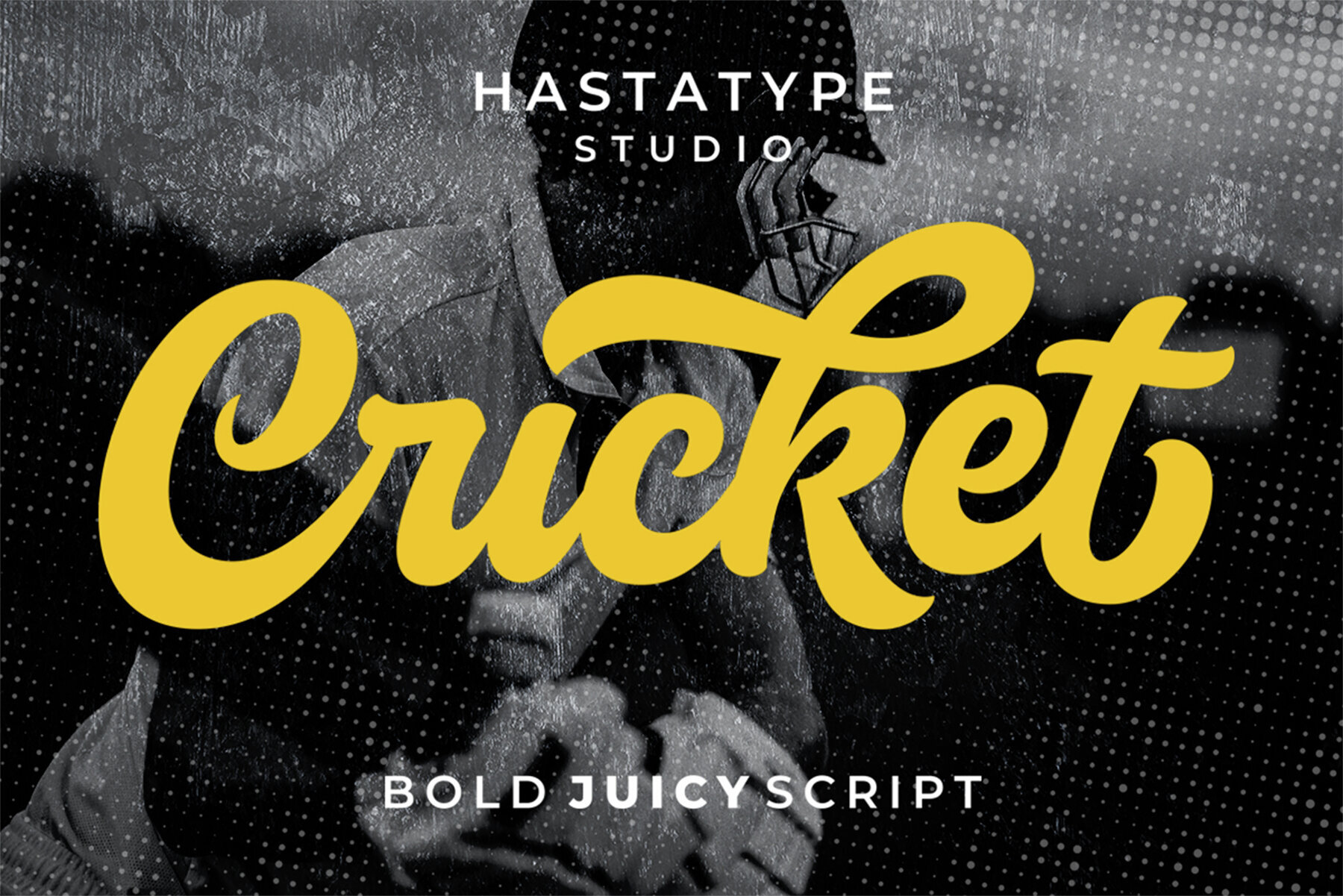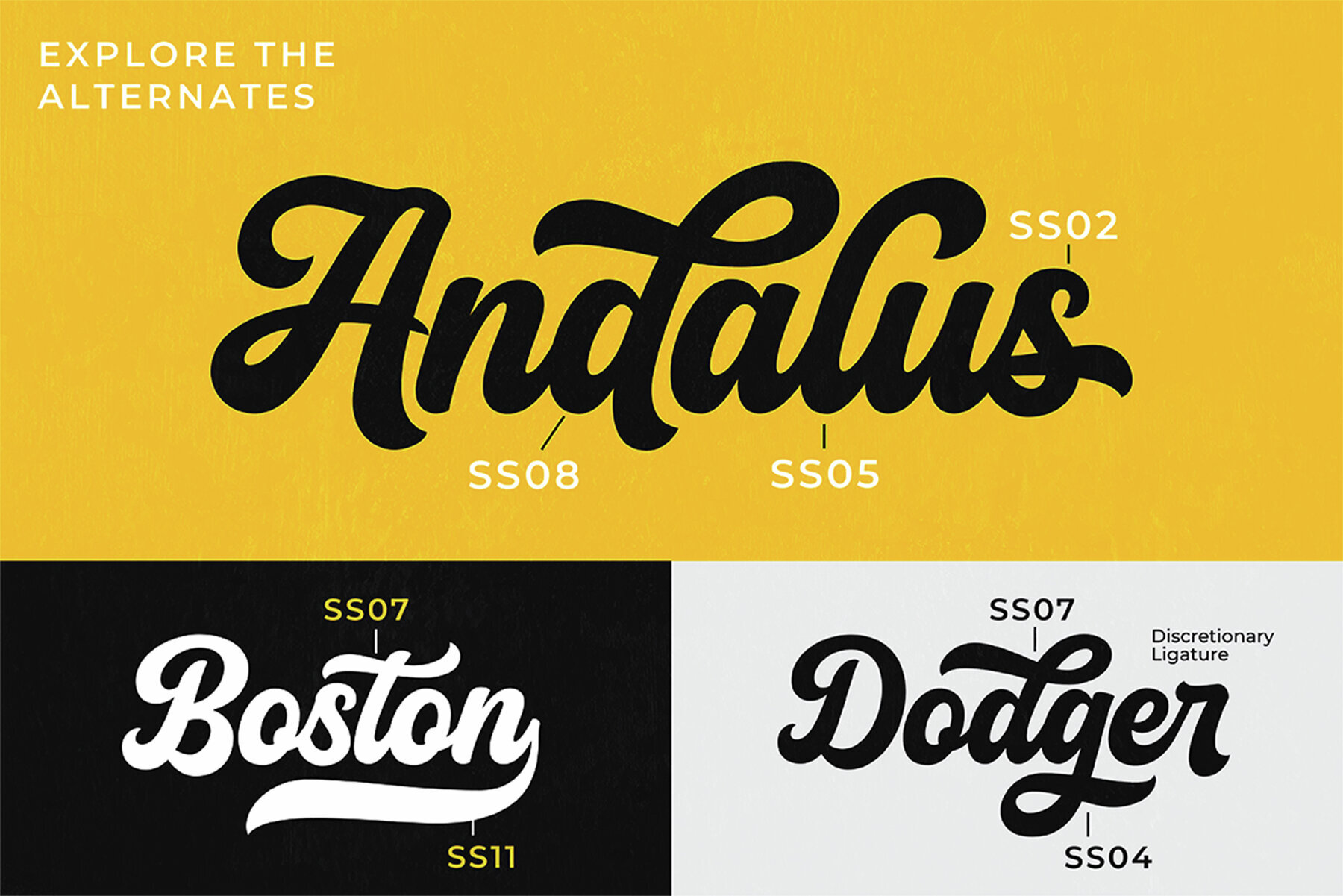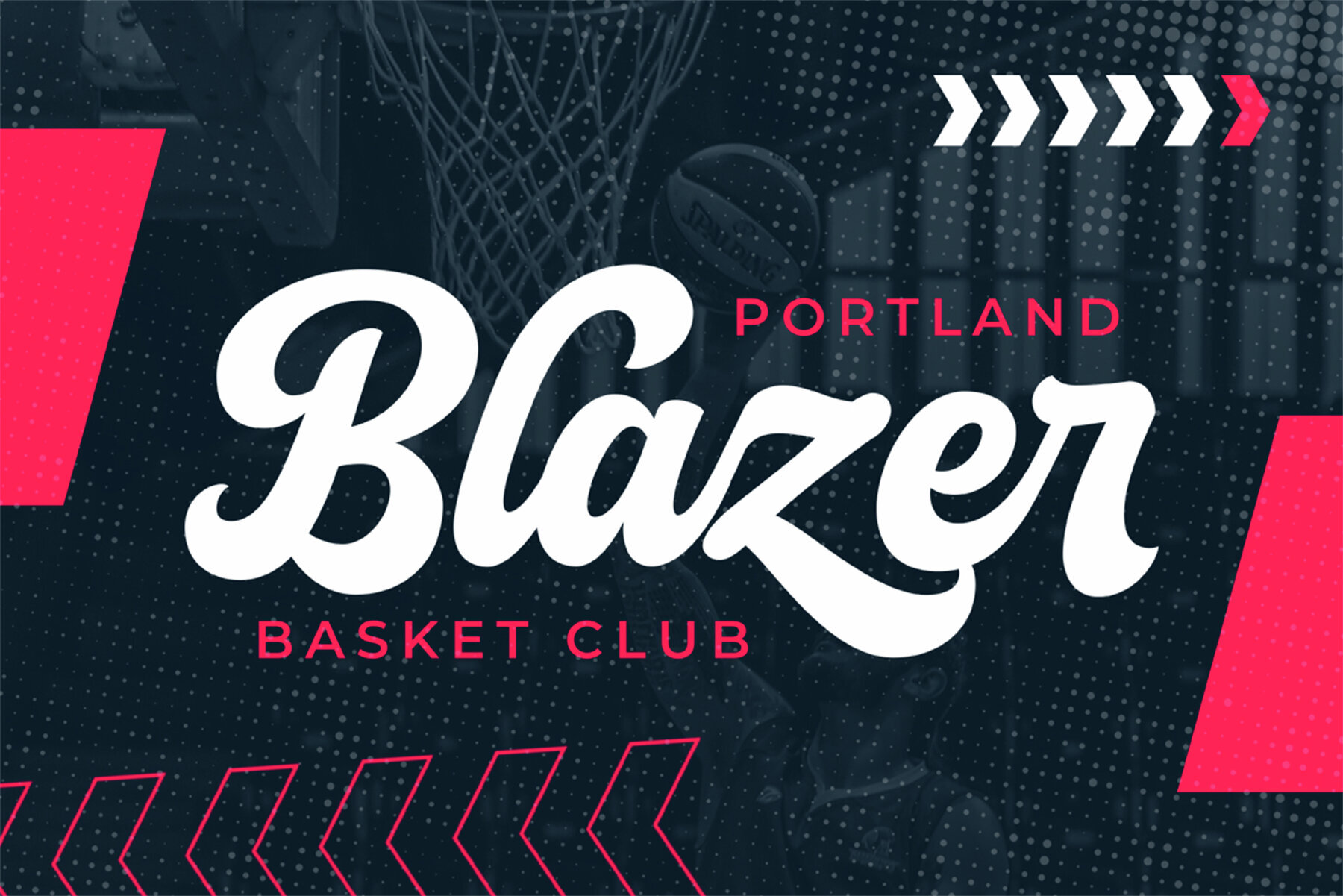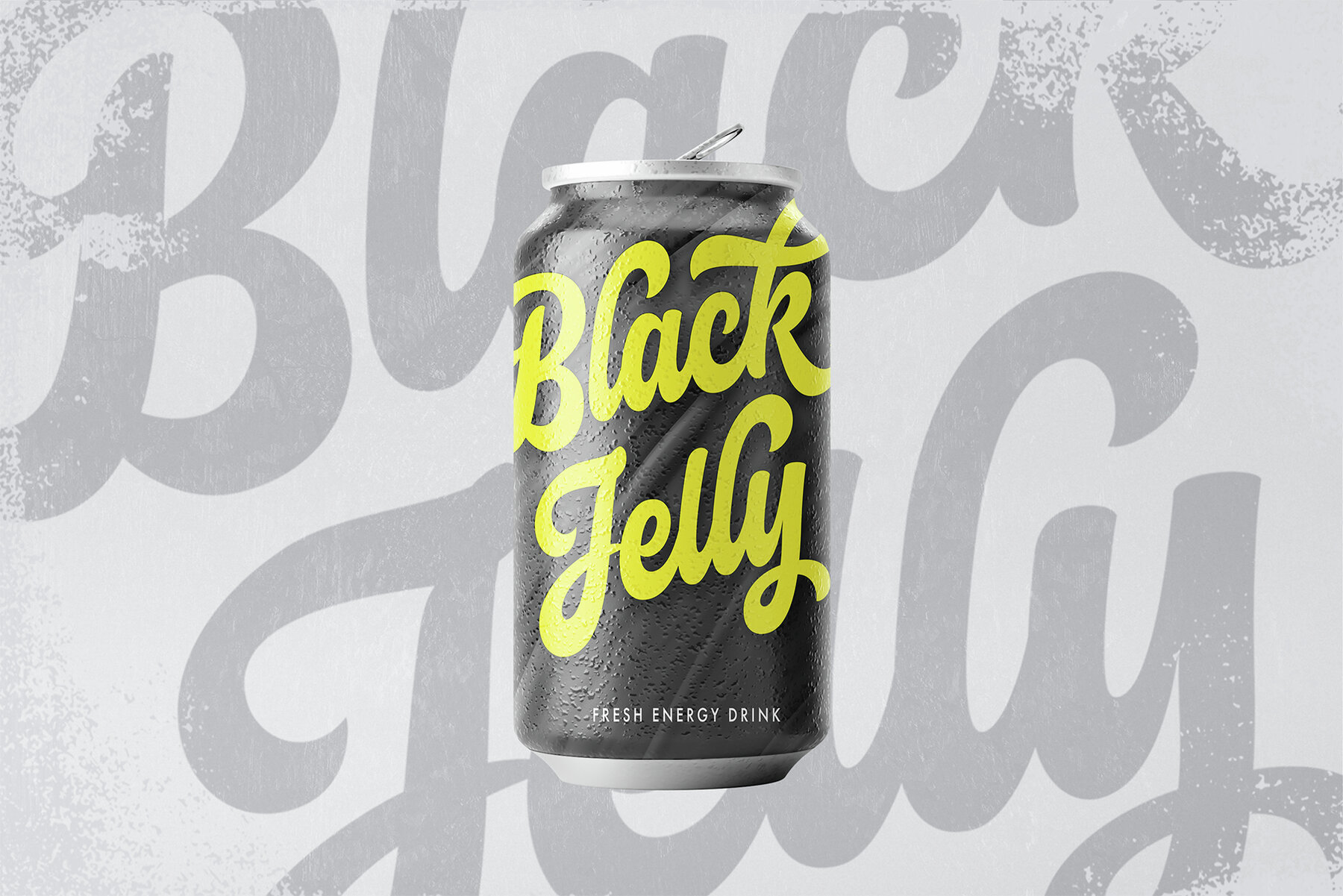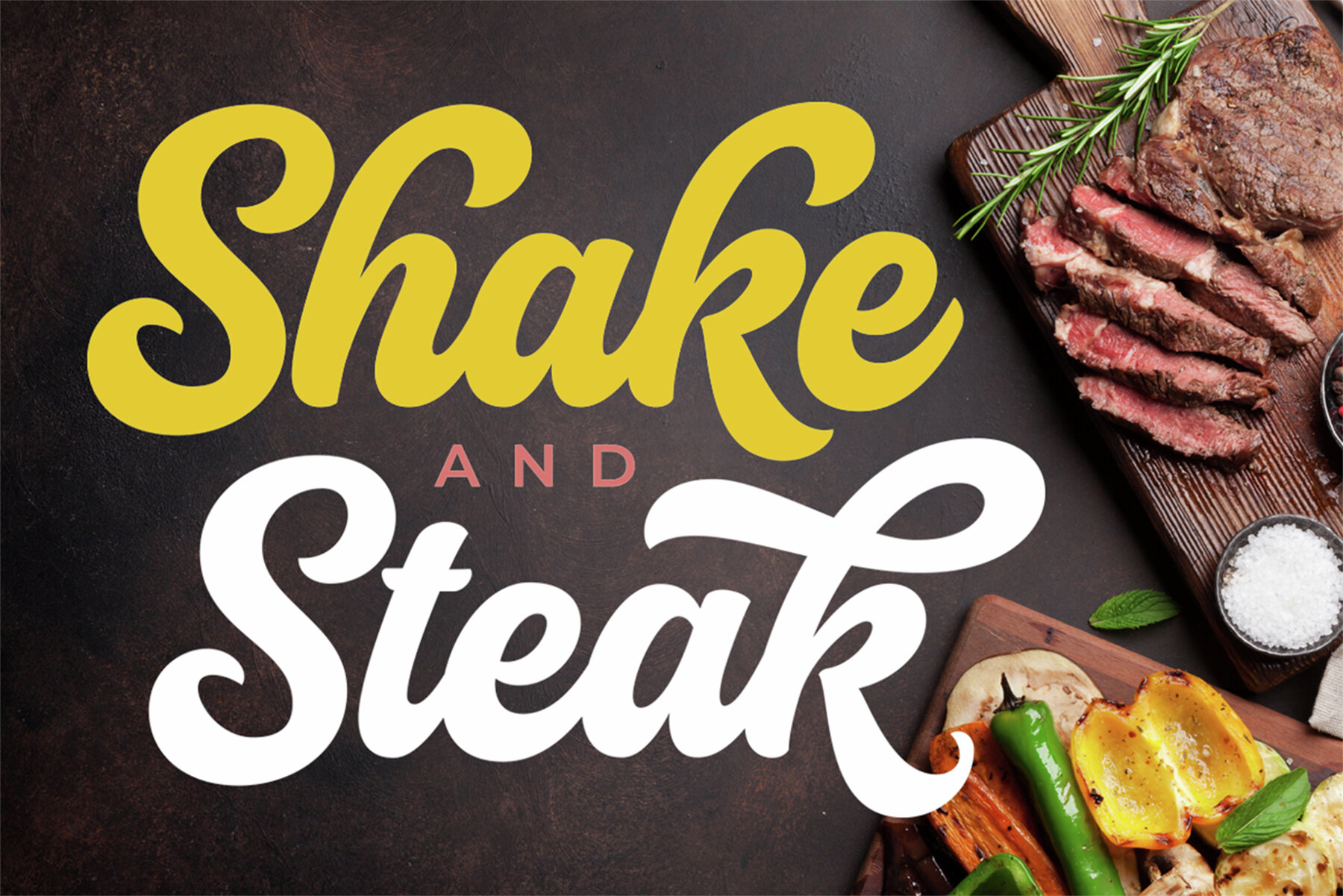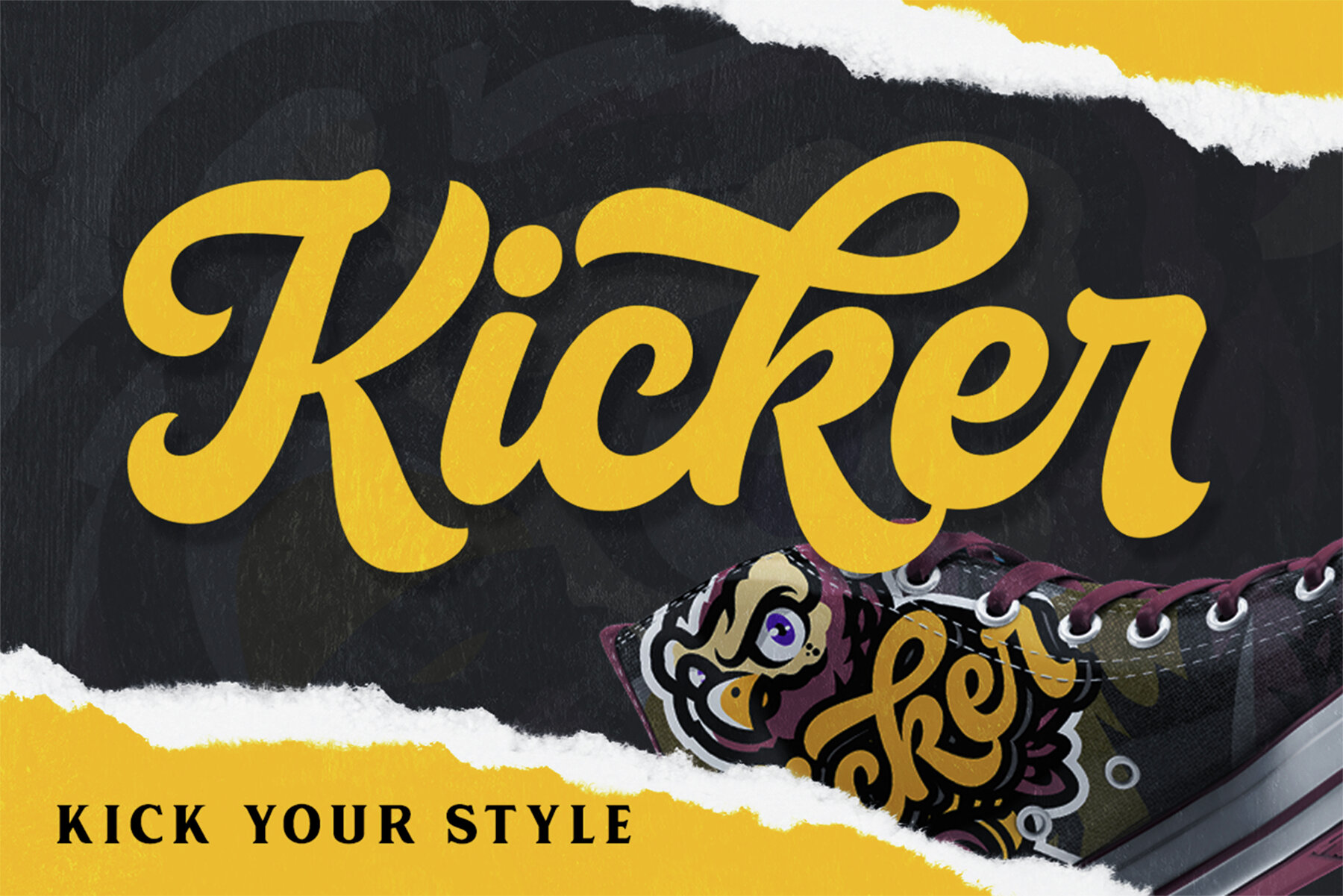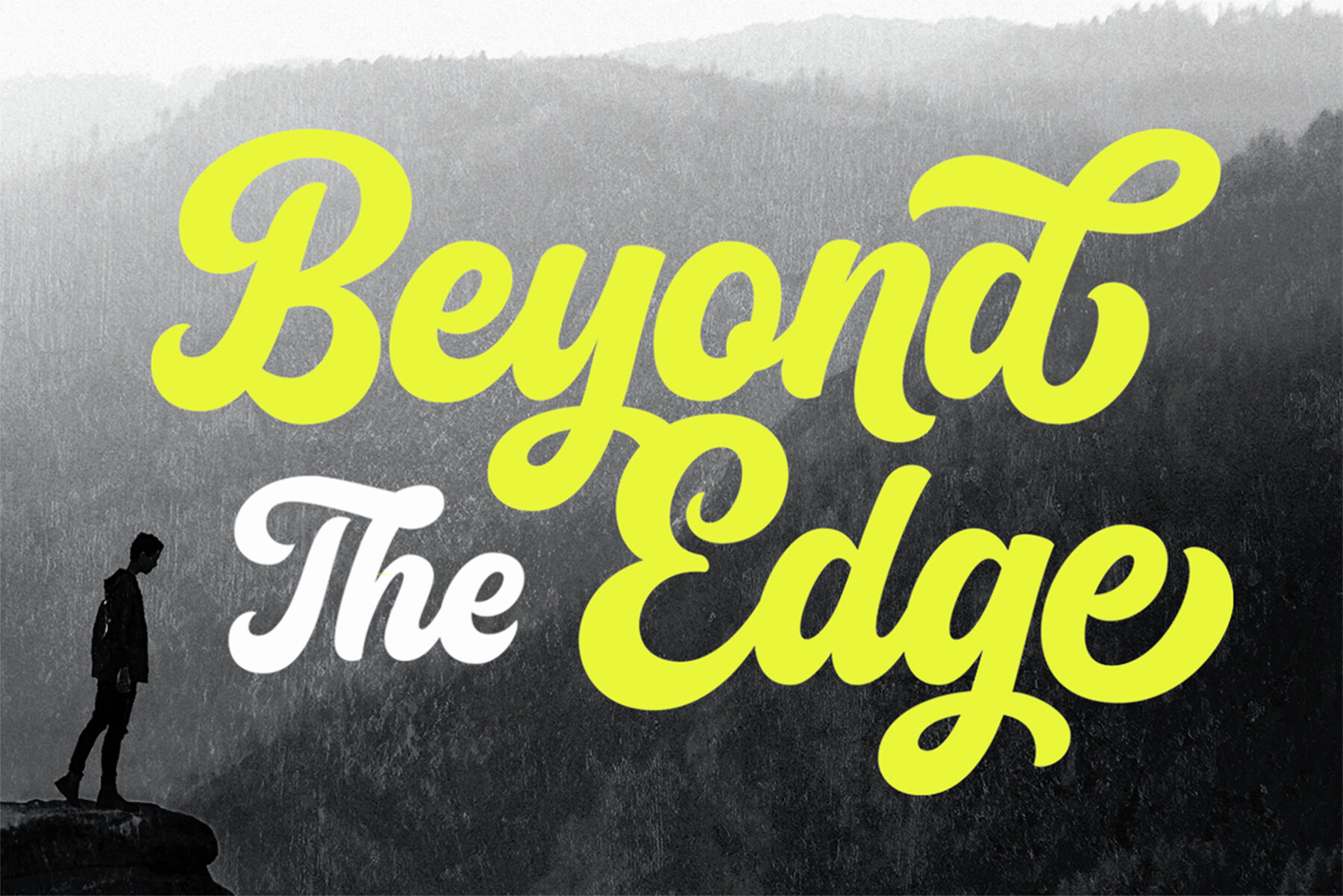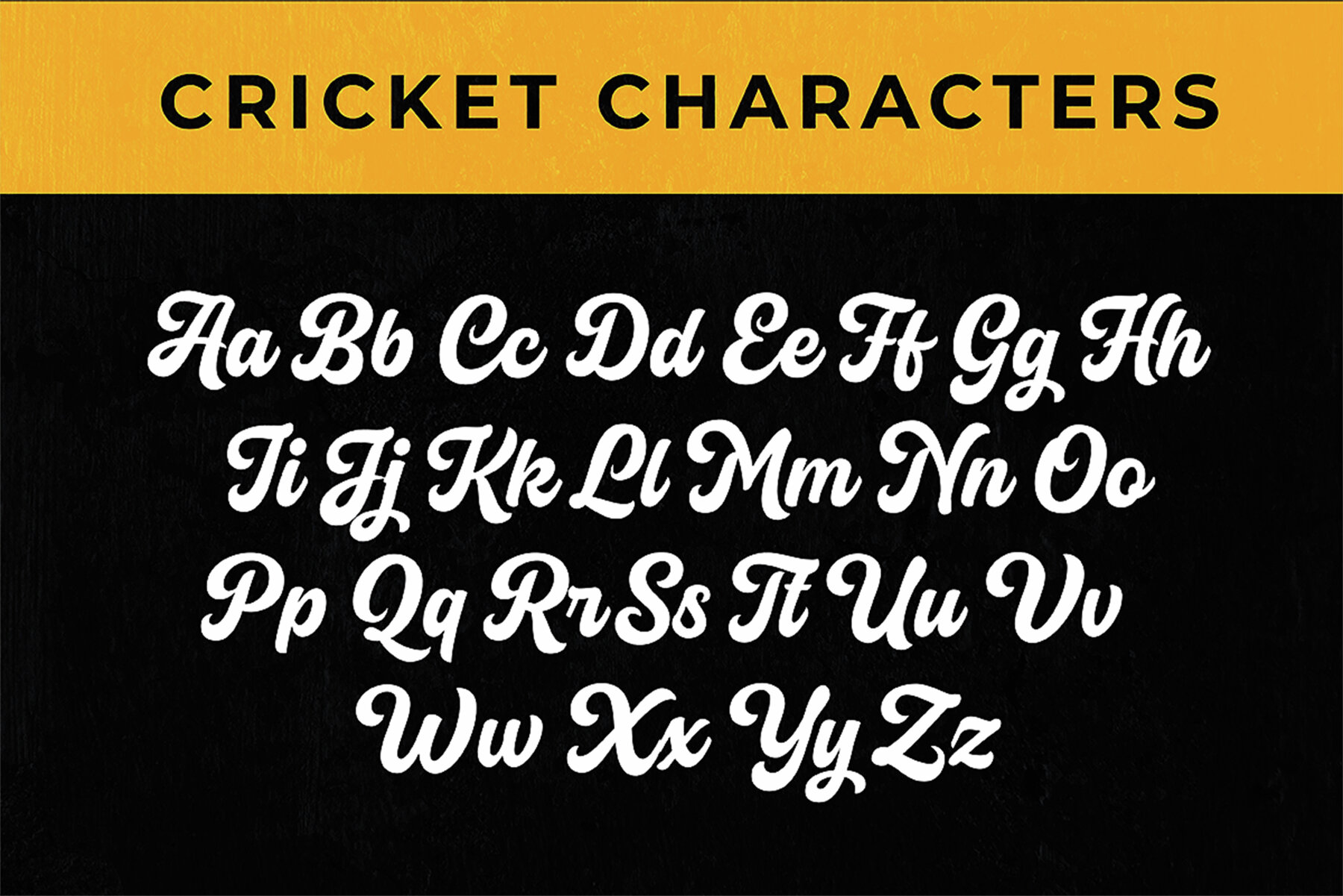
Cricket Font
Cricket
Cricket is a dynamic and bold script font that exudes elegance and energy, perfect for creating distinctive logotypes. Its sweeping curves and intricate strokes lend a sense of motion and sophistication, making it an ideal choice for branding projects that require a striking, memorable impact. The playful yet refined design of Cricket ensures that your text stands out, whether it’s for a modern tech brand, a chic fashion label, or a creative arts project. Its versatility and boldness give a confident and professional look, capturing attention and leaving a lasting impression. Embrace the vibrant personality of Cricket to bring your logotype to life with style and flair. Cricket is perfect for designing a Brand, Quotes, Slogan, poster, book cover, banners and any other projects which needs elegant type.